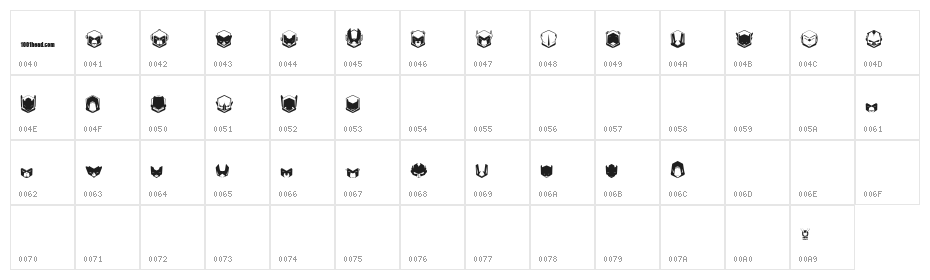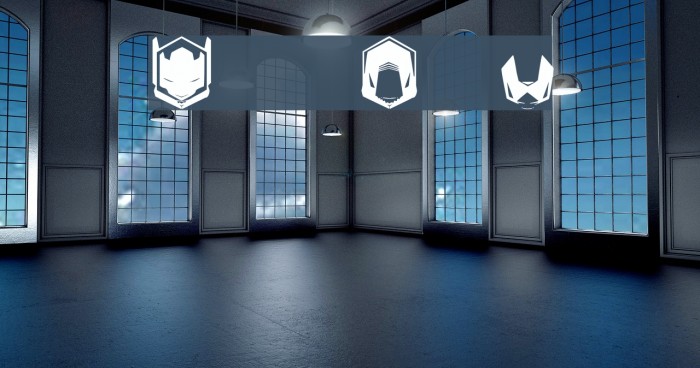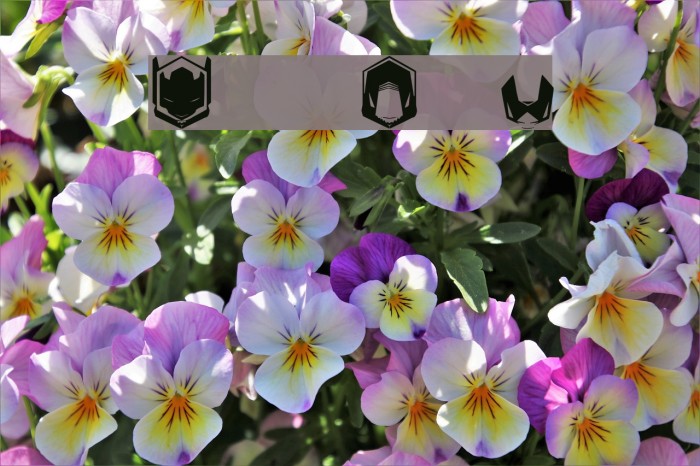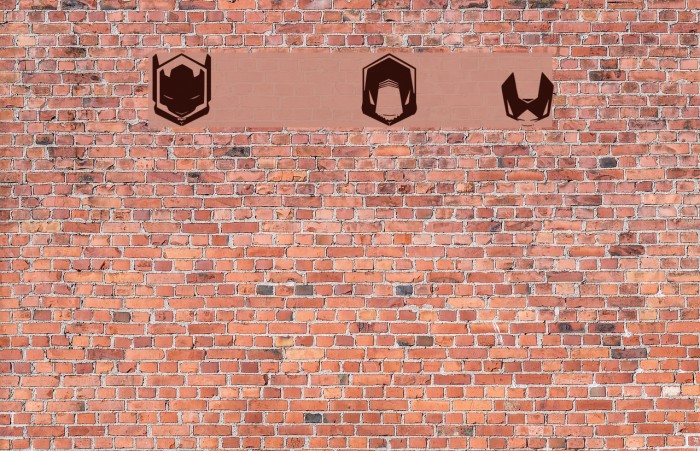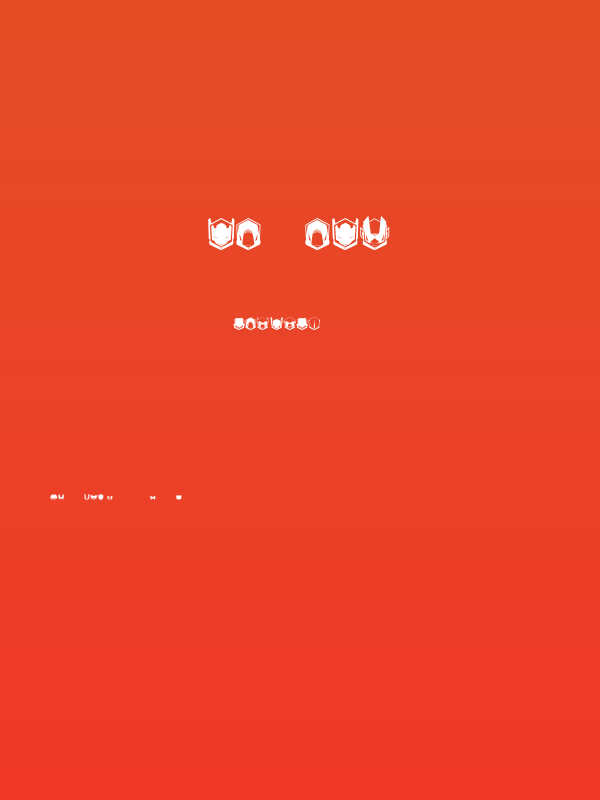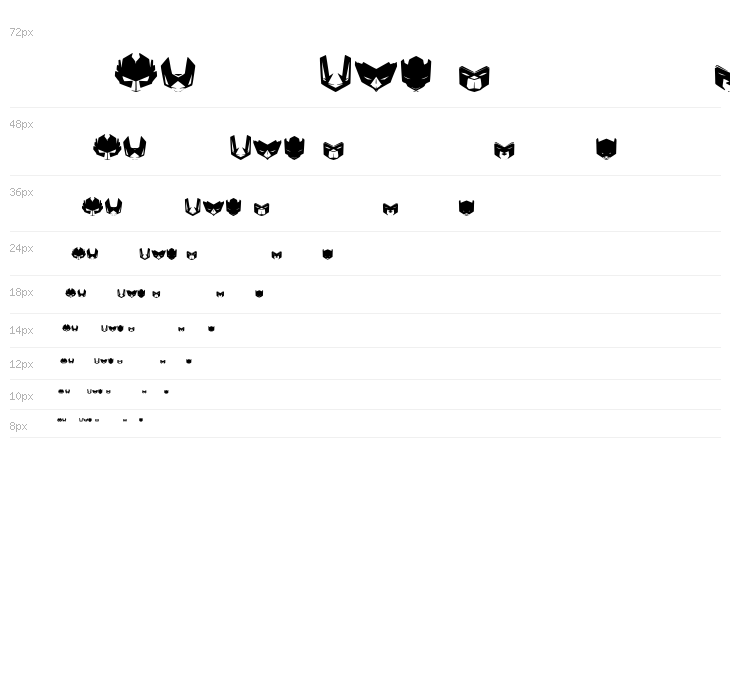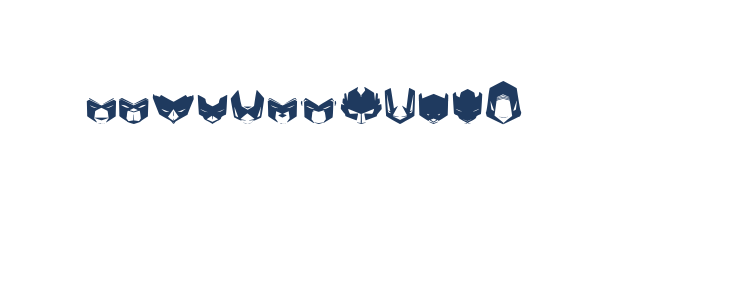
NoxOne Font
NoxOne Description
This collection features a series of stylized, geometric icons resembling various helmeted figures, each enclosed within a hexagonal shape. The designs are bold and striking, with a strong emphasis on angular lines and contrasting black and white elements. Each icon appears to represent a different character or theme, with unique variations in the shapes and details of the helmets. The overall aesthetic is modern and somewhat futuristic, with a playful yet edgy vibe. These icons could be used in a variety of creative projects, offering a distinctive visual element that captures attention.
| Overall Style | Modern, Futuristic |
| Use Case | Logos, Icons, Gaming Interfaces |
| Proposed Projects | Ideal for use in gaming interfaces, comic book designs, or as part of a branding package for tech or entertainment companies. |